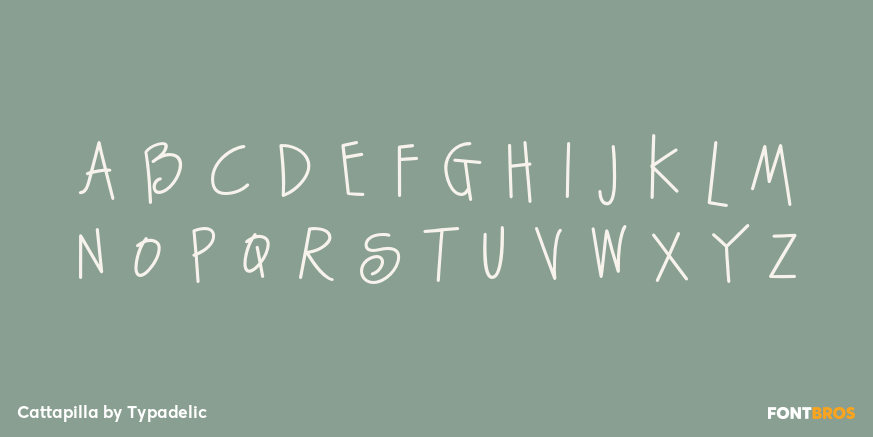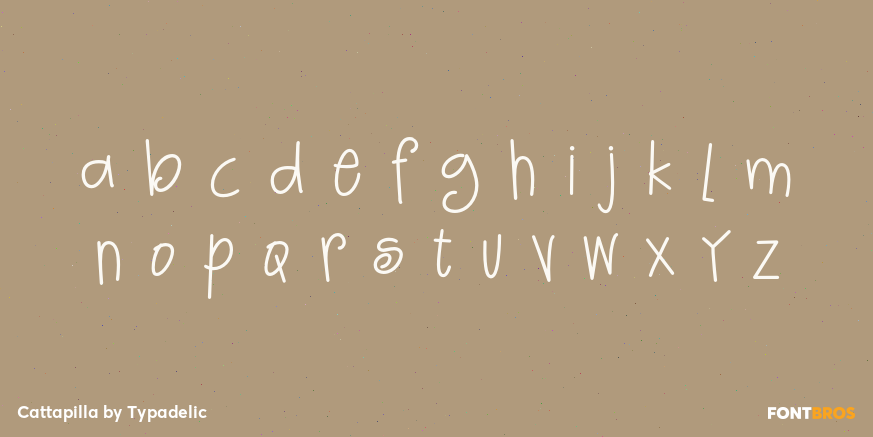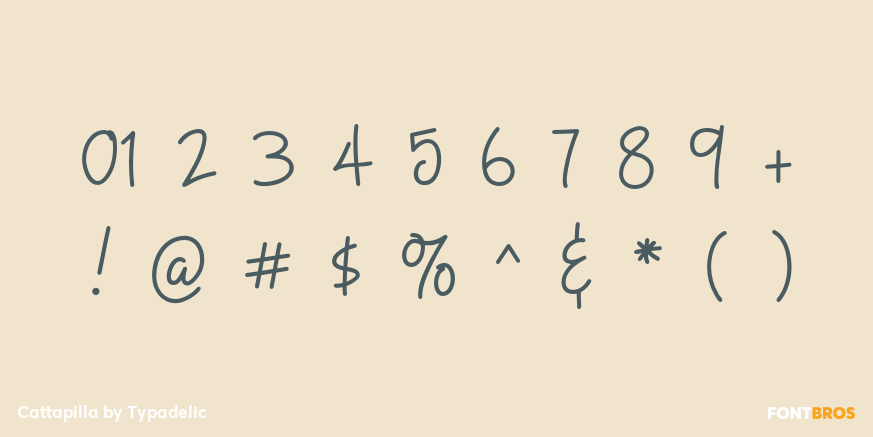
Cattapilla
Font Family by Typadelic
How cute can you get? Cattapilla's open type version has extra ligatures and stylistic alternates, perfect for scrapbooking, greeting cards, announcements or any creative project.